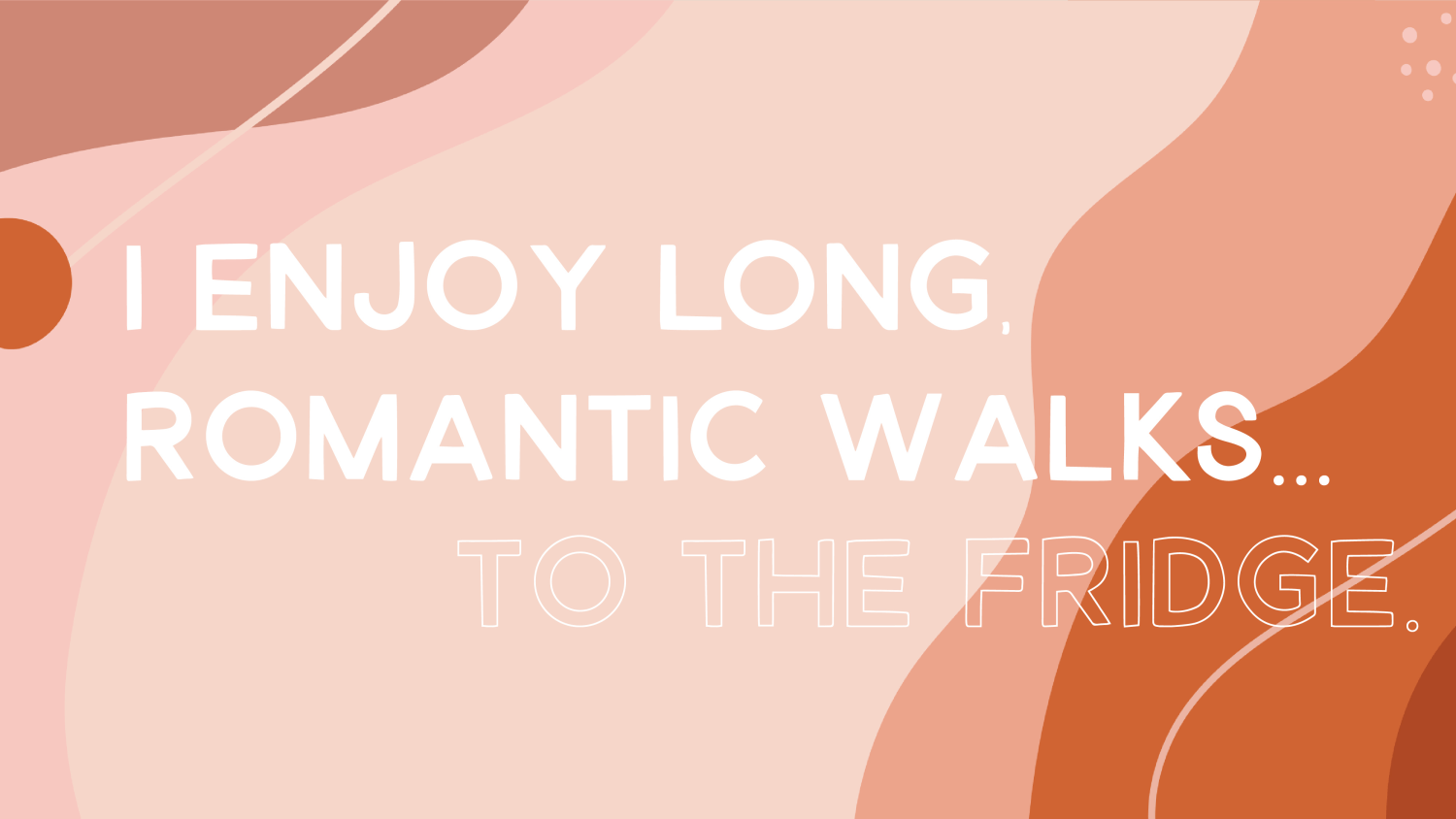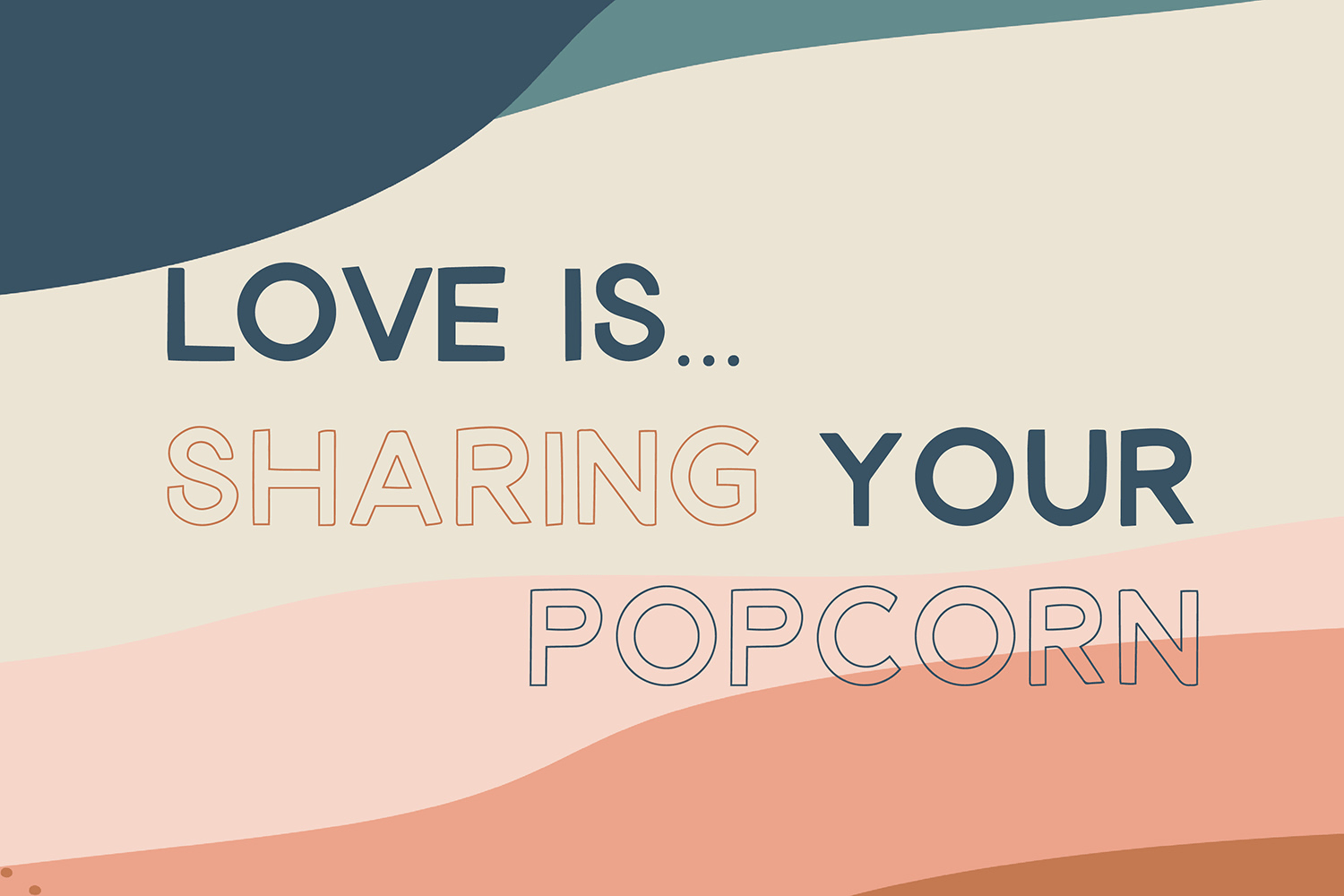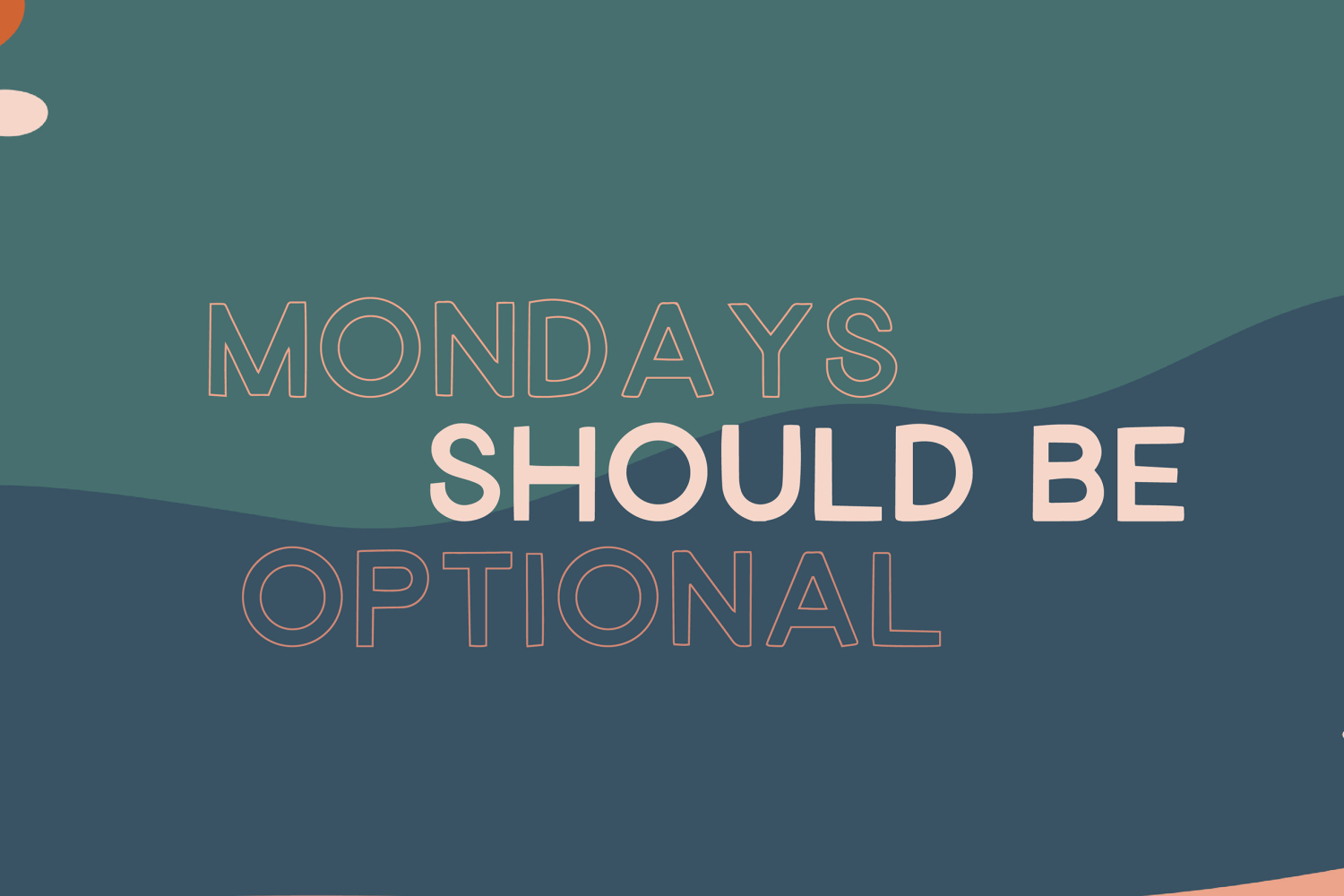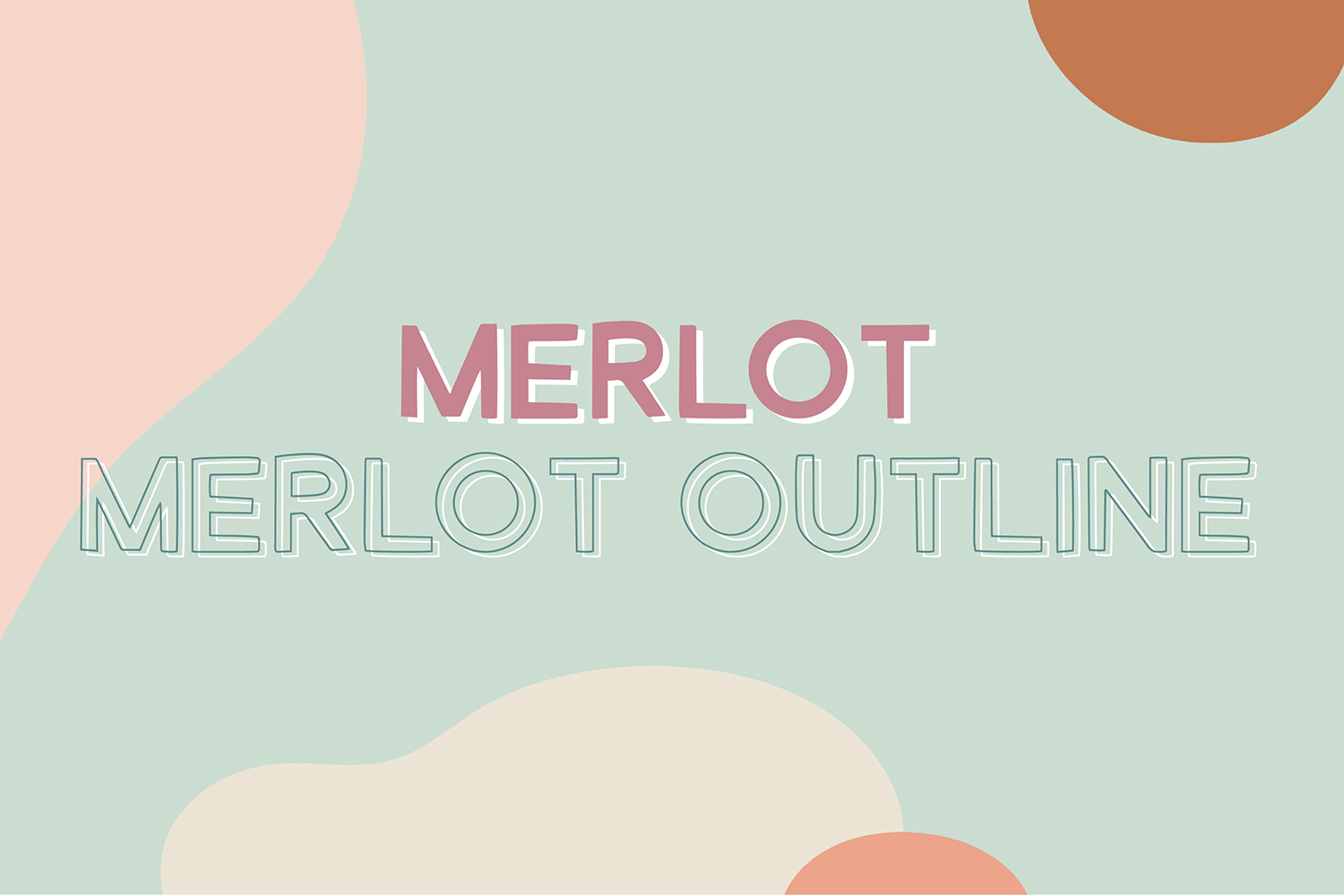
HomeFont BrosHandwrittenMerlot HandwrittenSans SerifNow on Sale!Wacky Merlot FacebookXPinterestWhatsApp 1 of 4 About Merlot An all caps block font + bonus outline version.  DOWNLOAD ON FONT BROSThis font is sold and delivered by Font Bros. Font Canyon may earn a commission if you buy through this link. People also explored Kalyne Font Welcome Christmas Font Moonstar Font Creative Handmade Font Belycha Font Winterland Font Bratislove Kenthisa Font Marselin Signature Font 312 0 TagsMerlotMerlot Font Previous articleMFC Corena MonogramNext articleAsterism LEAVE A REPLY Cancel reply Comment: Please enter your comment! Name:* Please enter your name here Email:* You have entered an incorrect email address! Please enter your email address here Website: Save my name, email, and website in this browser for the next time I comment. Personal Use Free Manhattan Personal Use Free Read more about this font Screengem Personal Use Free Read more about this font Romantic February Personal Use Free Read more about this font Recharge Bold Personal Use Free Read more about this font BLOG Best Fonts for T-Shirt Design – Top 2025 Picks In 2025, t-shirt design has become more than just fashion—it's a form of self-expression. Whether you're... How to Cut Any Font on Cricut: Convert a Font to SVG (Free) Best Fonts for YouTube Videos: Make Your Thumbnails Stand Out Top 7 Google Fonts Alternatives for Faster and Privacy-Friendly Web Design (2025)